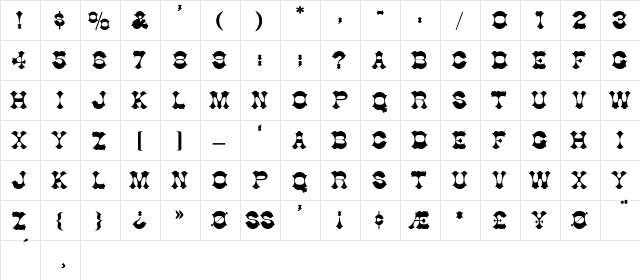
Good Bad Ugly Regular
Design Context for Good Bad Ugly Typeface
Good Bad Ugly is a composed and adaptable typeface that performs quietly and consistently across a wide range of design contexts.